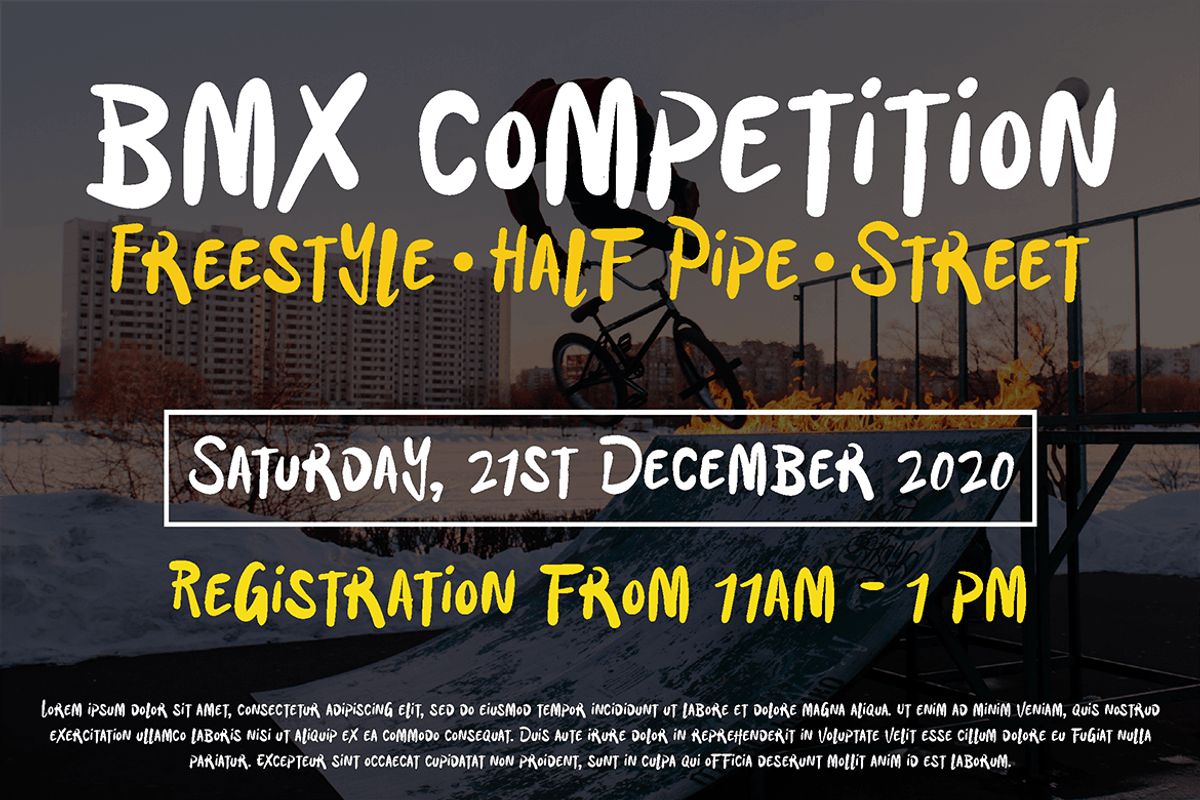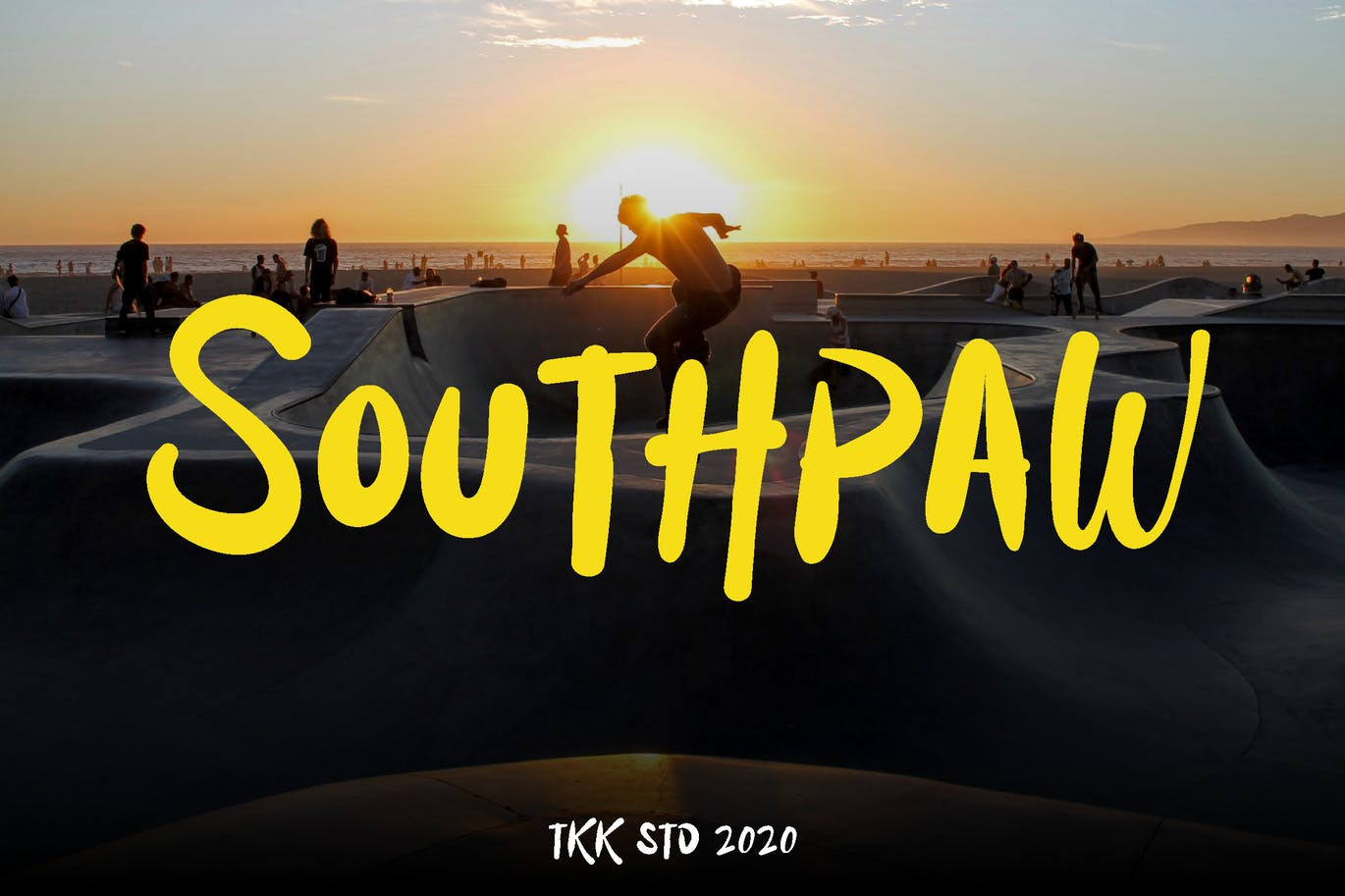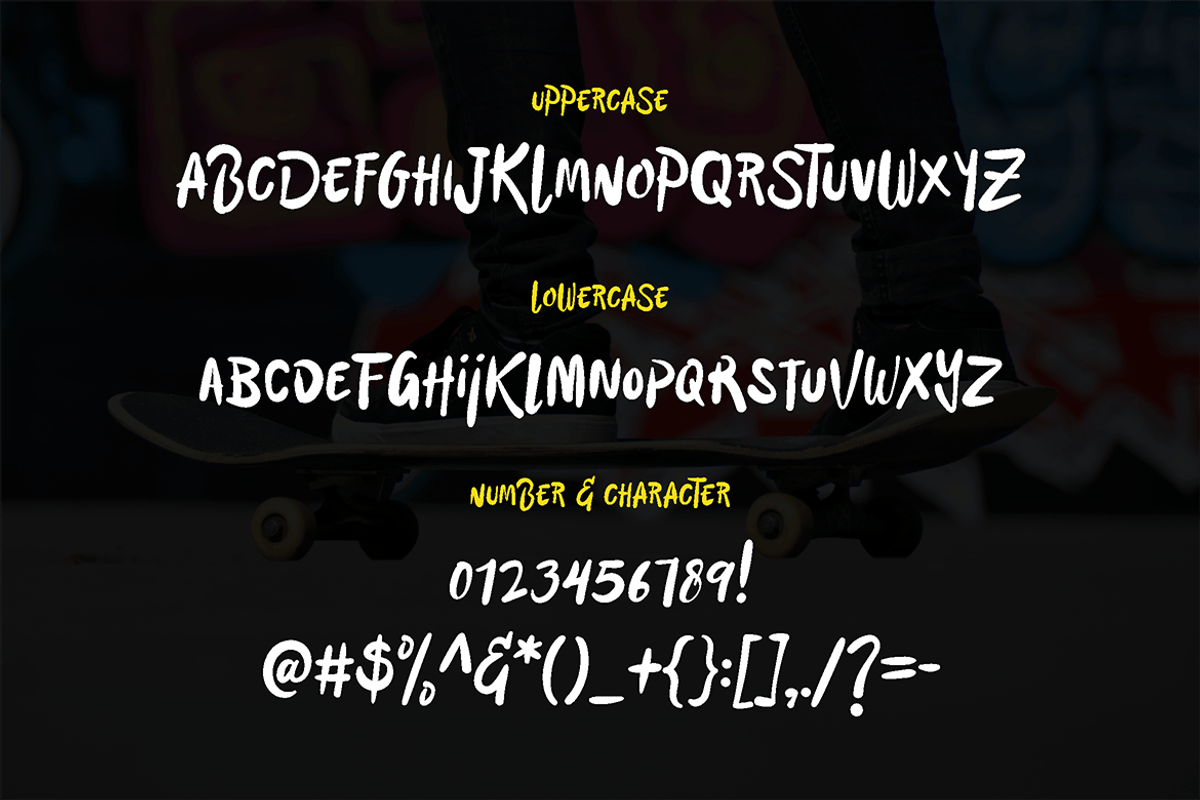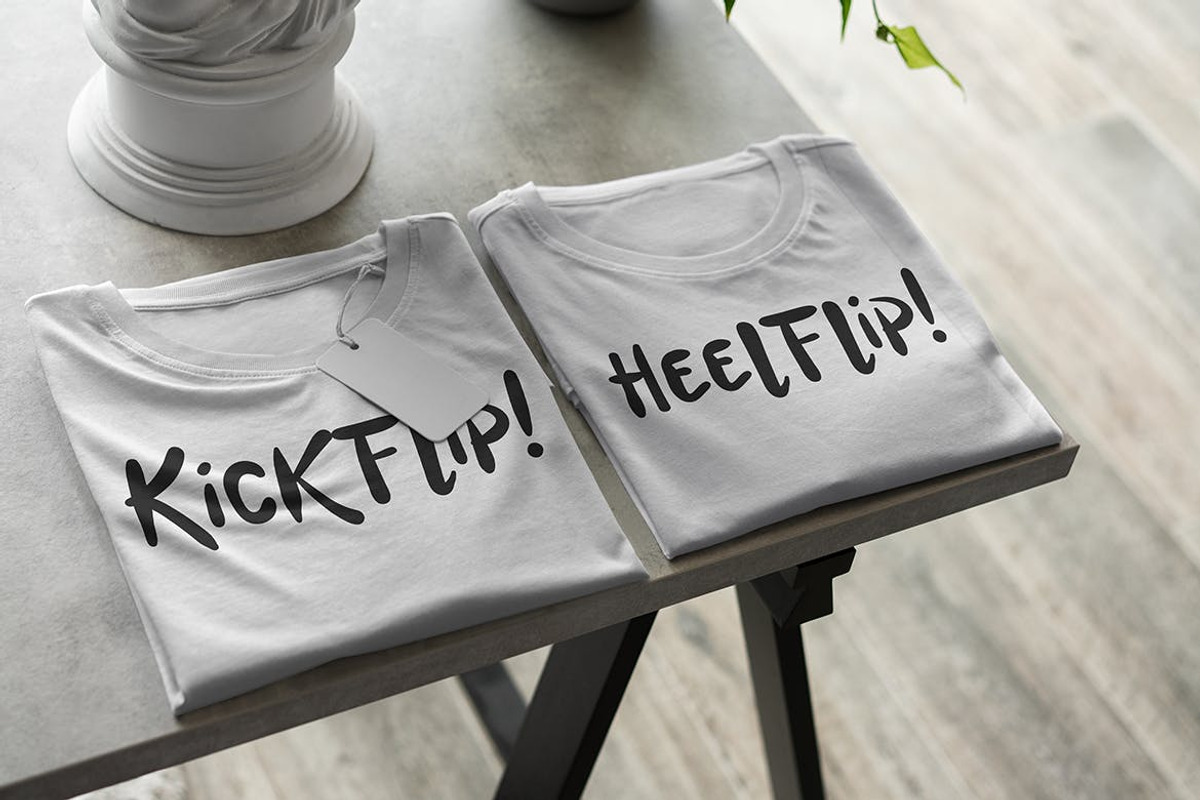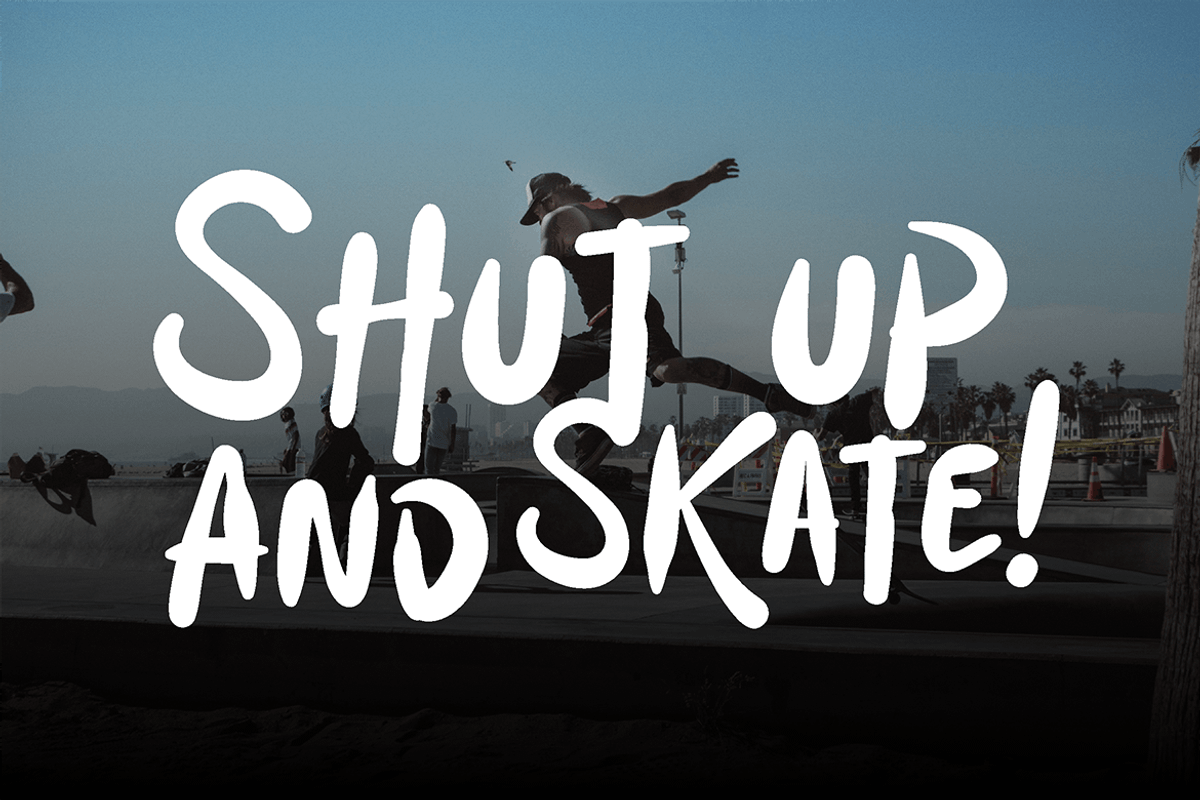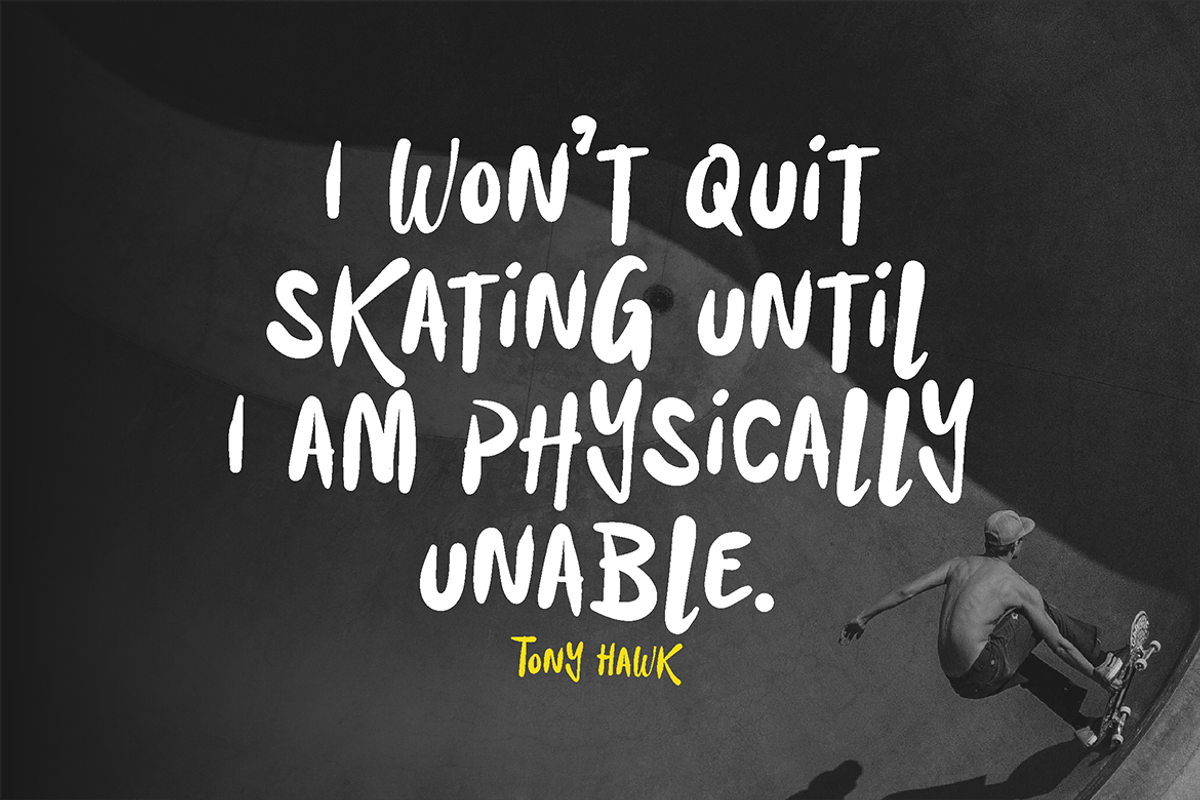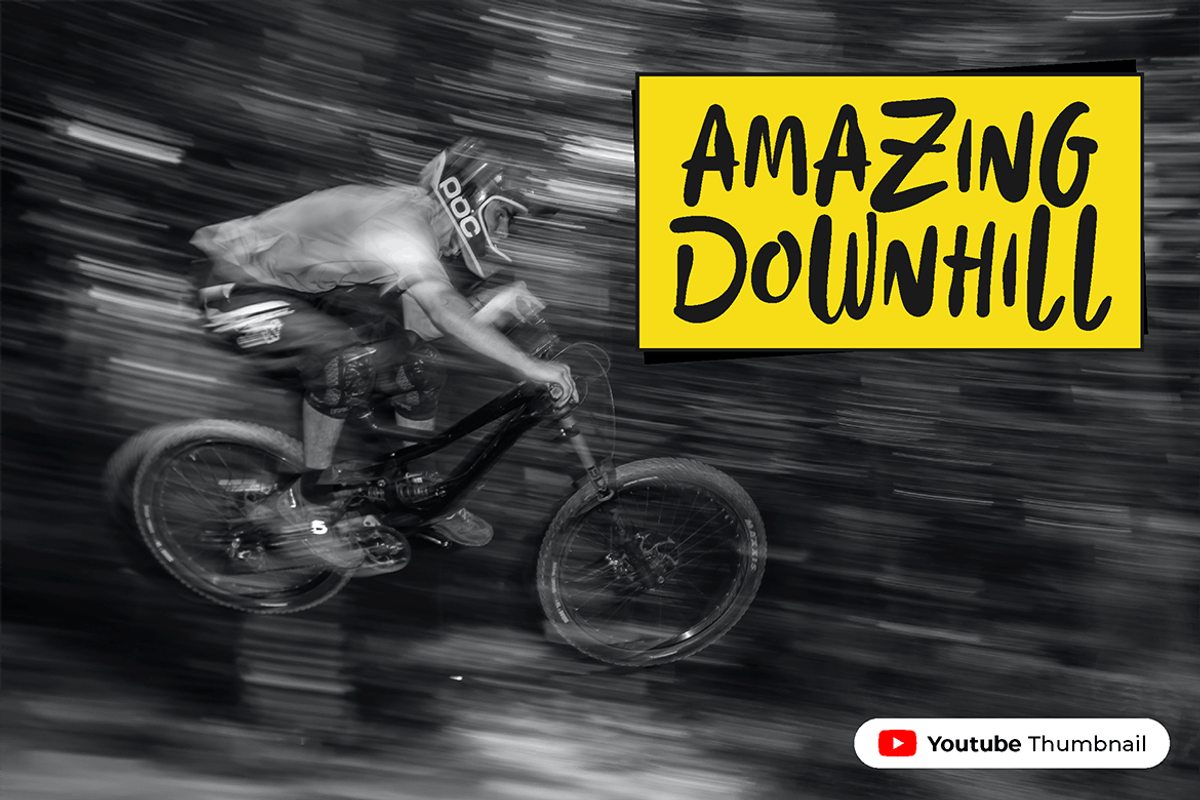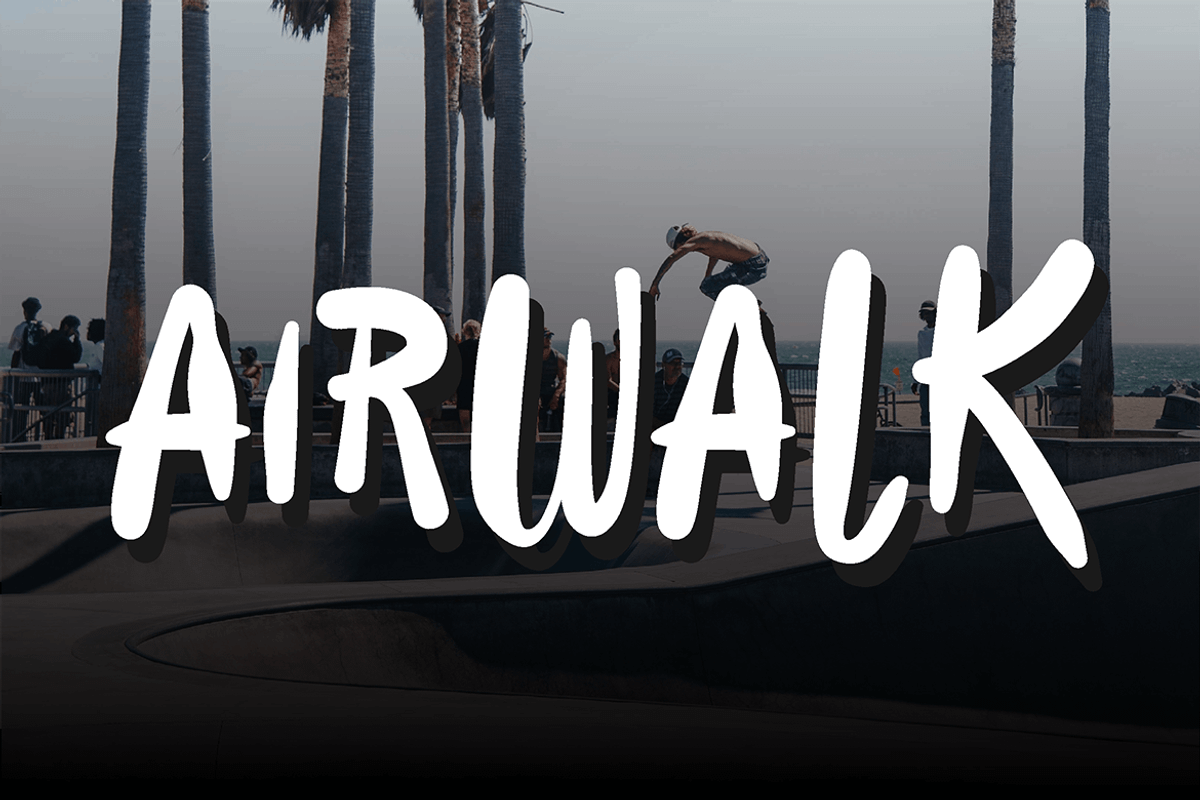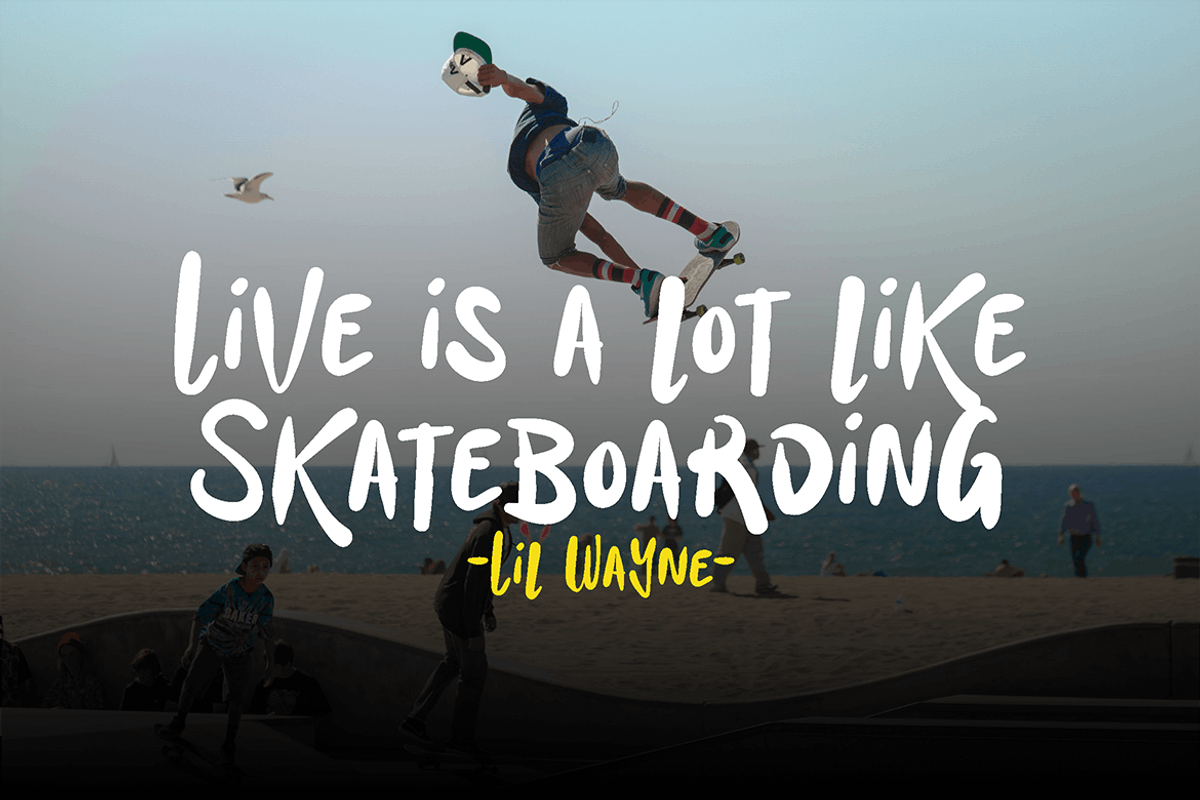
Southpaw - Graffiti Font
Southpaw graffiti font it’s all about agressiveness, energy, and rebel youth. Don’t let the blob and rounded corner fool you. southpaw is just a punch in the face!
Suit perfectly for the Urban clothing brand, skateboard and BMX event, poster, movie title, fast food menu, magazine, youtube covers, youtube thumbnails, social media page covers and so on…